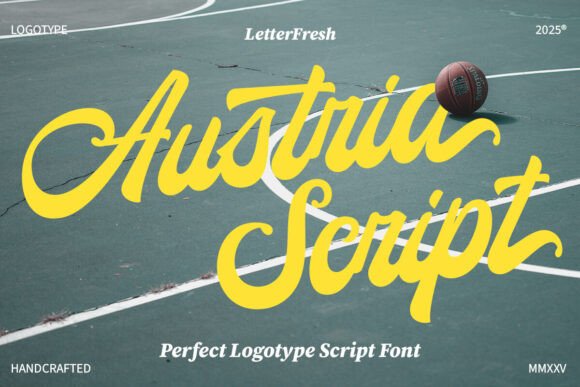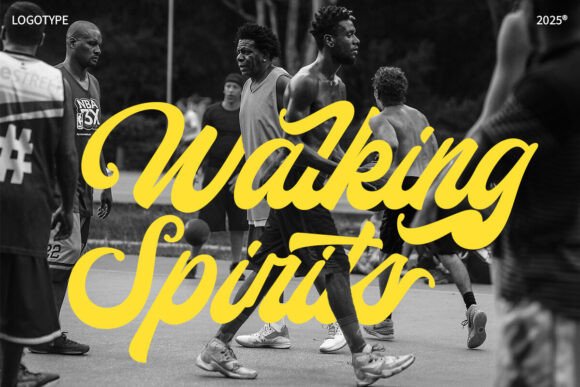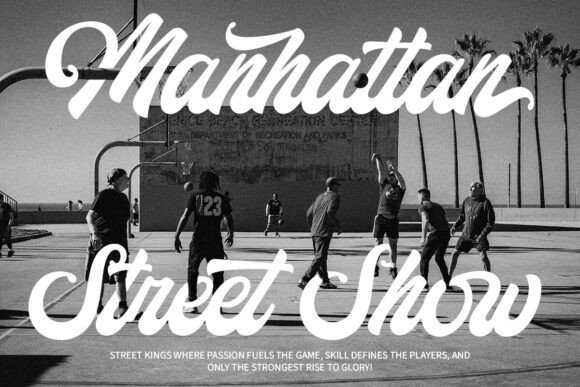
Austria Script Font: Retro Vintage Typography for Logo Design
About the Austria Script Font
Make a bold statement with Austria Script Font, a powerful and memorable font. Austria Script is Inspired by Modern Vintage & Retro styles and a combination with old American traditional style.
Austria Script allows you to create handwritten letters instantly and is very practical. Ideal for logos, handwritten quotes, product packaging, headers, posters, merchandise, social media & greeting cards.
Austria Script’s playful yet refined personality makes it perfect for branding projects aiming for a vintage-inspired feel, particularly those related to artisanal goods, cafes, boutiques, or events with a retro aesthetic. It excels in headlines, short quotes, and logos, adding a touch of handcrafted charm. However, its script nature makes it unsuitable for large blocks of text or UI elements where readability is paramount.
Consider pairing Austria Script with a clean sans-serif like Montserrat for a balanced contrast, or a more geometric sans-serif like Futura for a modern, upscale feel. A subtle serif like Playfair Display can also create a sophisticated pairing, enhancing the vintage inspiration.
Avoid using it for body copy or situations requiring high legibility. Its strength lies in its ability to add personality and visual interest to key design elements rather than providing a foundation for extensive text.
Austria Script Font Usage Examples
Austria Script Font Example